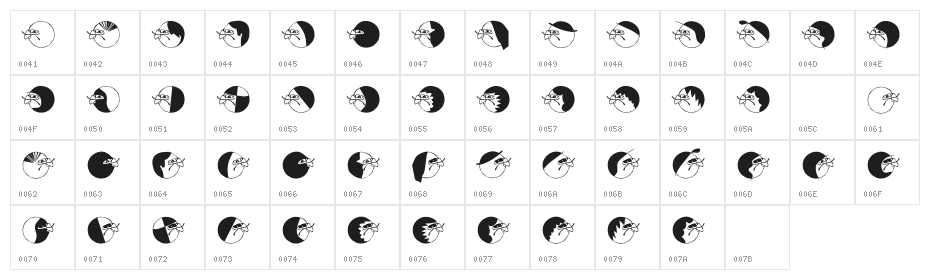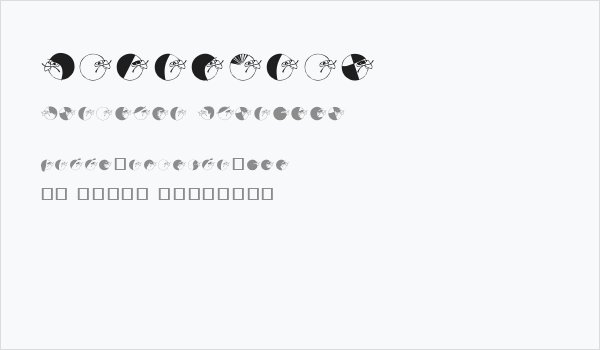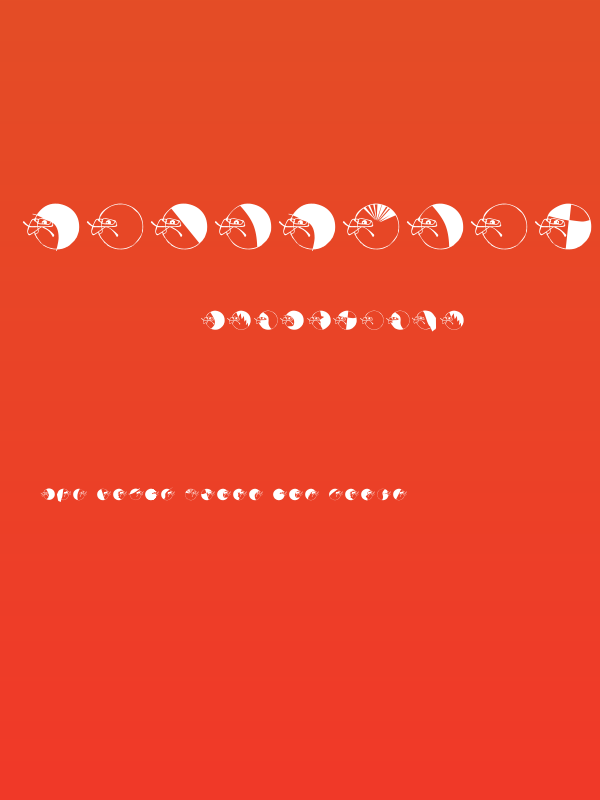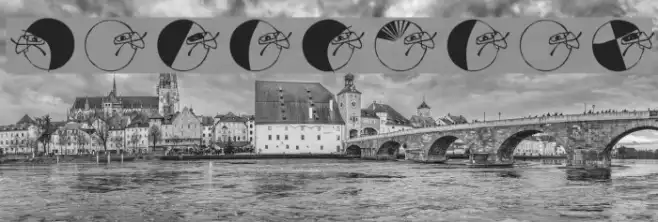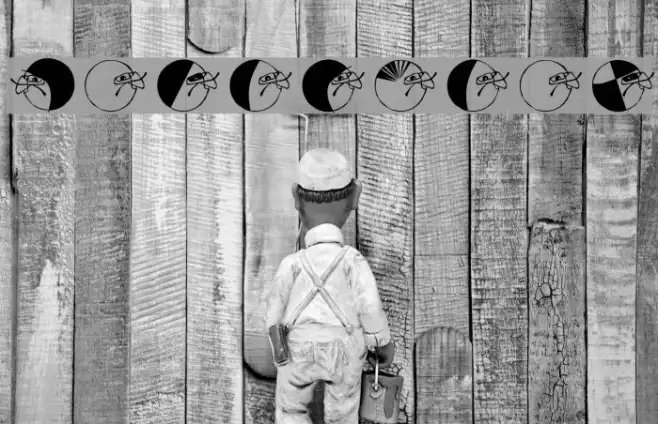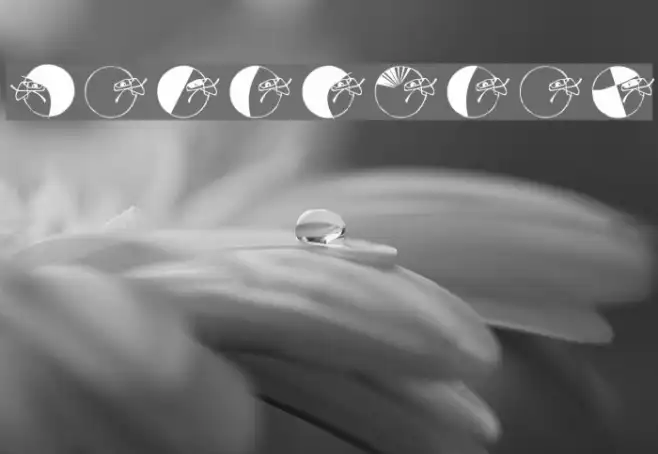
Nasenbear Font
Nasenbear Description
A whimsical decorative font where each character is represented by a circular outline containing a stylized anteater illustration, with varying black and white fills and subtle differences for each letter or number. Symbols are represented by bold, thick-outlined squares.
| Overall Style | Decorative, Playful, Whimsical |
| Use Case | Logos, Headlines, Posters, Themed Events |
| Proposed Projects | Children’s books, playful branding, educational materials, animal-themed posters, creative invitations. |